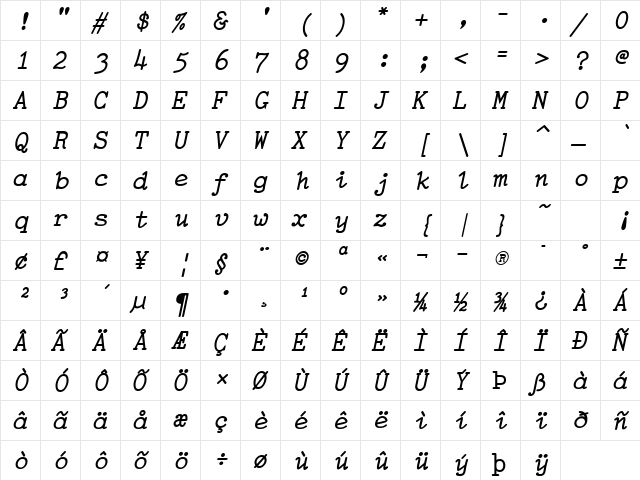
TiredOfCourier BoldItalic Font Preview
Design Context for TiredOfCourier Typeface
TiredOfCourier uses fixed-width spacing throughout, giving it the structured, systematic character associated with coding environments and technical documentation. Its italic angle brings a sense of urgency and motion to the letterforms. The heavy weight commands attention and anchors typographic hierarchies.